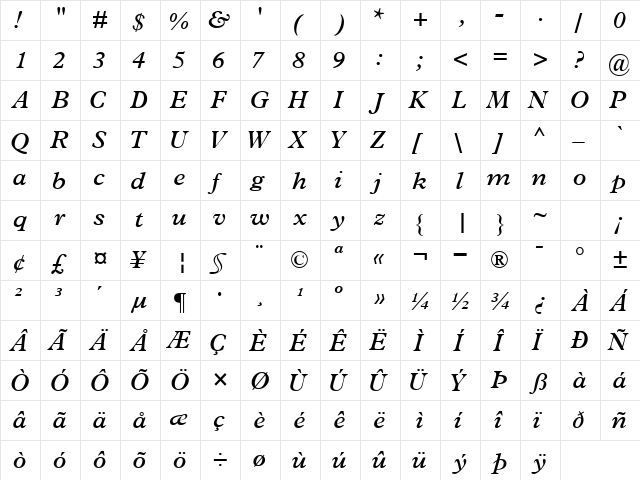
TerminusSSK SemiBoldItalic
Design Context for TerminusSSK Typeface
TerminusSSK is a composed and adaptable typeface that performs quietly and consistently across a wide range of design contexts. The dynamic lean of this cut emphasises speed and emphasis in any layout. The heavy weight commands attention and anchors typographic hierarchies.
Pro Tip: Try TerminusSSK for annotation and caption copy alongside an upright companion — the contrast in angle creates a dynamic but ordered typographic system.